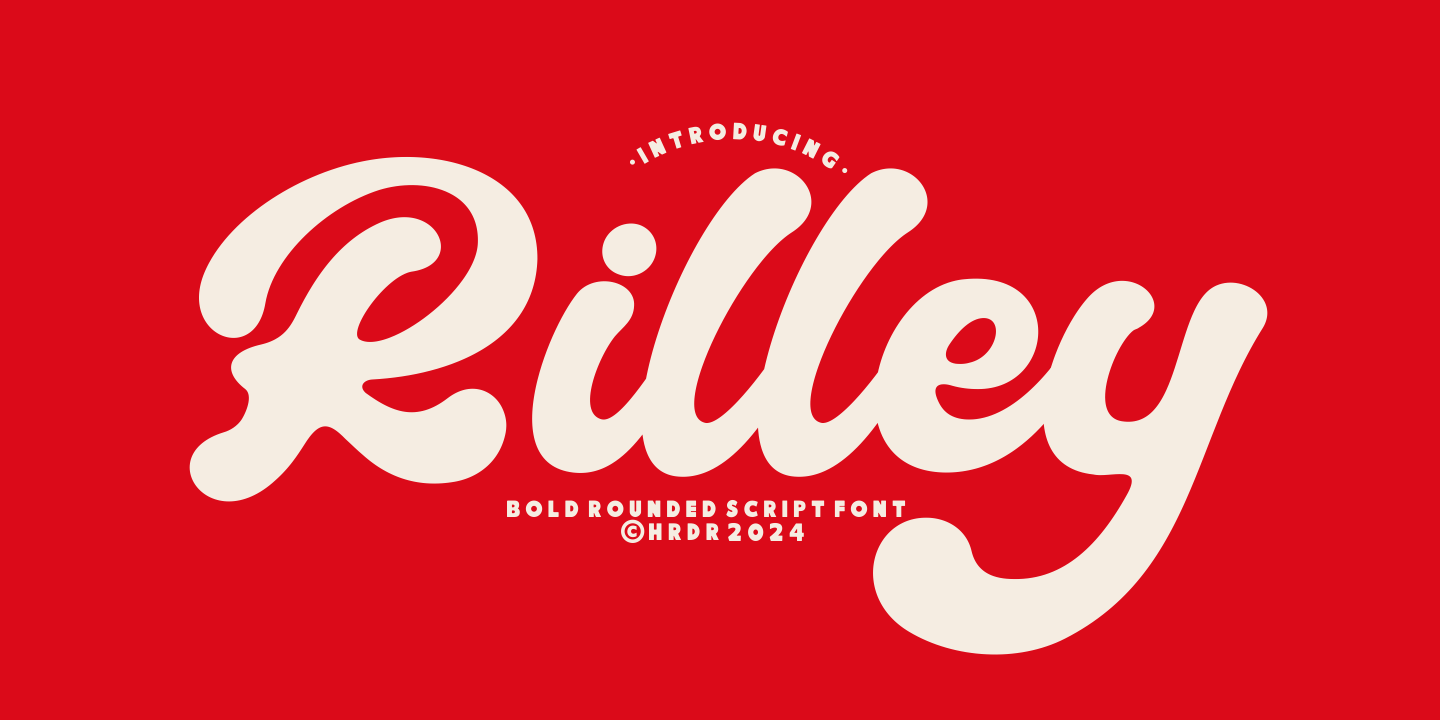
Rilley Font is perfect for contemporary lifestyle branding, modern boutique identity, trendy café materials, creative agency communications, millennial-focused campaigns, social media graphics, personal blog design, fashion startup branding, urban lifestyle publications, and stylish applications that celebrate approachable sophistication and modern personal expression.
What makes Rilley Font truly exciting is its perfect balance of contemporary style and personal warmth that creates an instantly relatable and authentically modern typographic voice for today's connected generation. This exceptional typeface combines current design trends with timeless readability, featuring friendly letterforms and approachable character that convey both style consciousness and genuine personality. The font's contemporary appeal and personal authenticity make it perfect for brands seeking to connect with modern audiences who value both aesthetic sophistication and authentic human connection in their lifestyle choices.
The Rilley Font family includes multiple weights and styles: Light, Regular, Medium, Bold, and Italic variations that reflect modern lifestyle diversity. Each family member maintains the distinctive contemporary character while offering flexibility for diverse personal branding applications and lifestyle communication systems. The comprehensive character set supports modern typography needs and lifestyle design elements, making it suitable for international contemporary communications.
When you choose Rilley Font Free Download, you're selecting a typography companion that speaks the authentic language of modern lifestyle and contemporary personal expression. This stylish typeface excels in applications where personal connection and contemporary appeal are essential, delivering exceptional style while maintaining approachable authenticity. Whether you're designing lifestyle brands, personal projects, social campaigns, or contemporary marketing materials, this font provides the modern sophistication and personal warmth that resonates with today's audiences who appreciate authentic style, personal expression, and the perfect blend of contemporary design with genuine human connection.